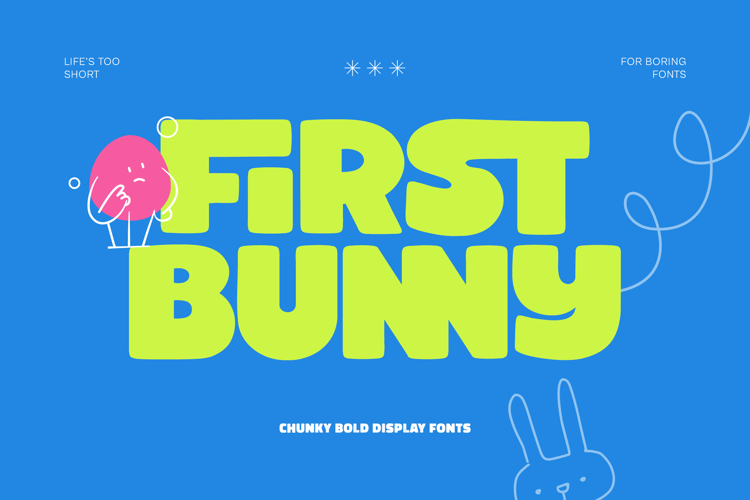
First Bunny Font
First Bunny is a chunky bold display font designed to bring a loud, joyful, and energetic personality to your creative projects. With its thick, rounded strokes and bubbly silhouette, this typeface captures the essence of retro nostalgia (think Y2K and late 90s) while maintaining a modern, polished aesthetic.